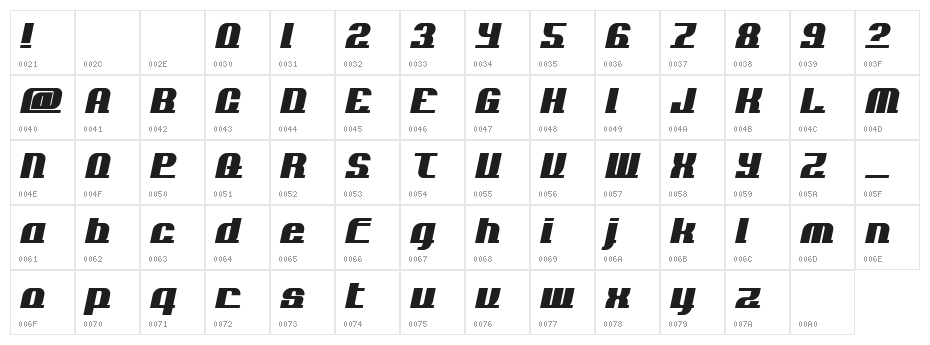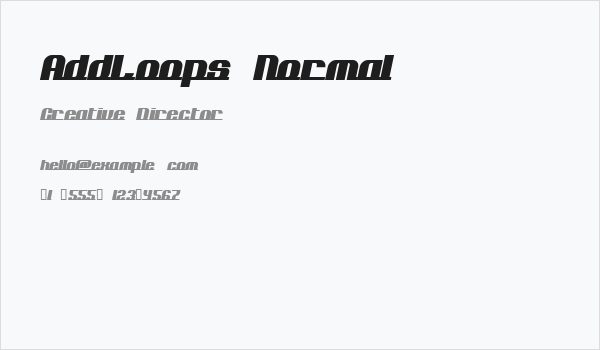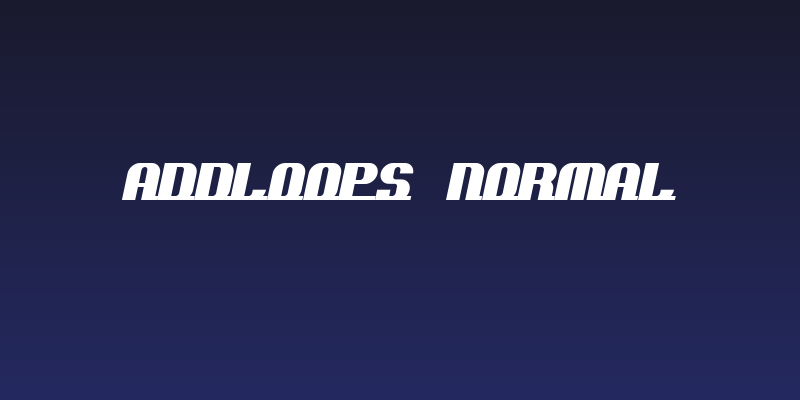
AddLoops Normal Font
AddLoops Normal Description
This font features a bold, modern design with a strong, angular structure. The characters are slightly slanted, giving a dynamic and forward-moving appearance. The uppercase and lowercase letters share a consistent style, with sharp edges and a geometric feel. The numbers follow the same bold and angular design, ensuring uniformity across all characters. The special characters are also designed to match the overall aesthetic, making this font suitable for projects that require a cohesive and striking visual impact.
| Proposed Projects | Ideal for sports branding, dynamic posters, and modern logo designs. |